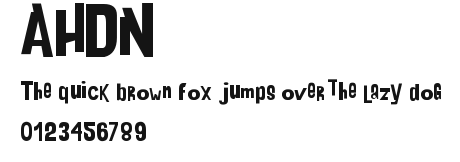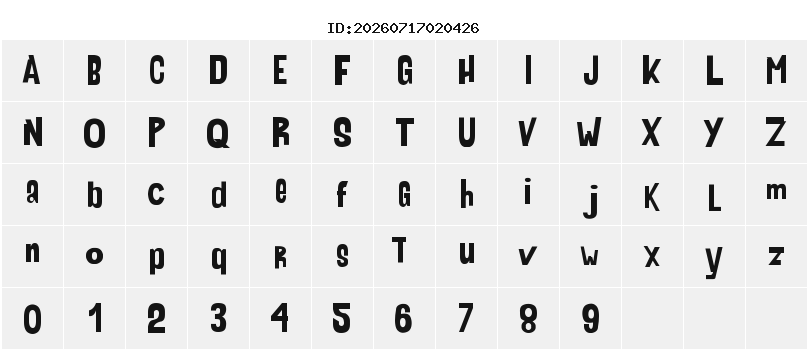
• Font Name: AHDN
• Full Font Name: AHDN
• Version: Version 1.00 May 17, 2005, initial release
About AHDN.ttf
AHDN.ttf is a modern, elegant sans-serif font designed for ultimate readability and visual harmony. Perfect for branding, headlines, web design, and print materials.